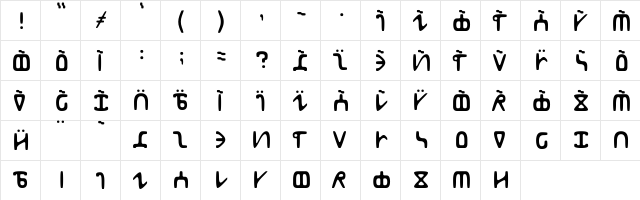
Abur Regular
| Foundry | High-Logic |
| Designer | High-Logic - Erwin Denissen 1999 |
Design Context for Abur Typeface
Abur is a composed and adaptable typeface that performs quietly and consistently across a wide range of design contexts.